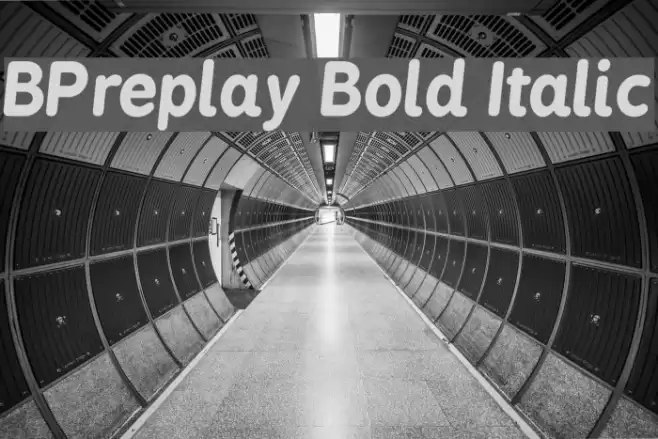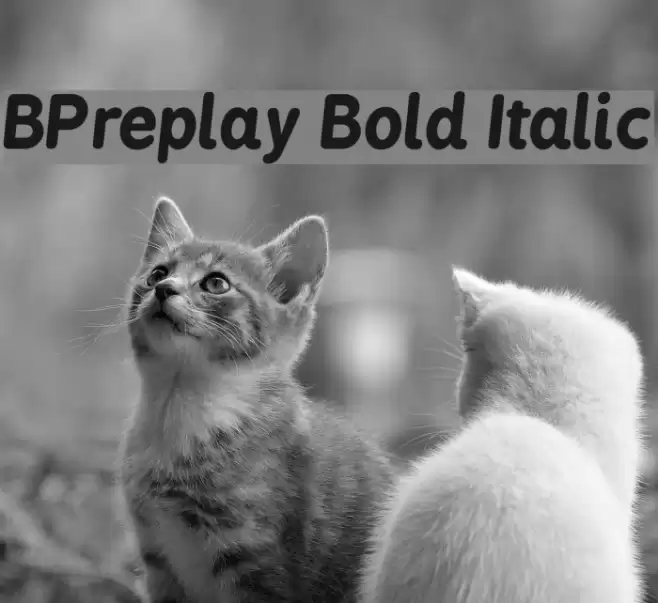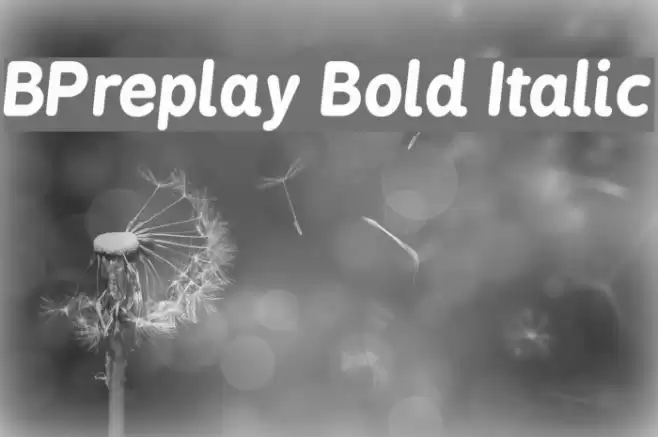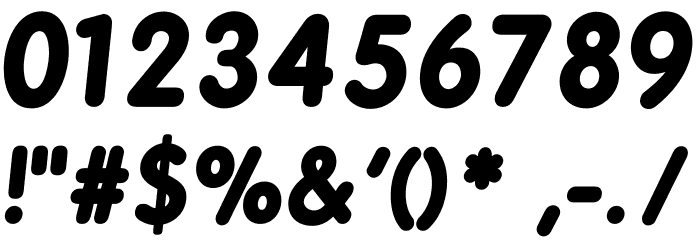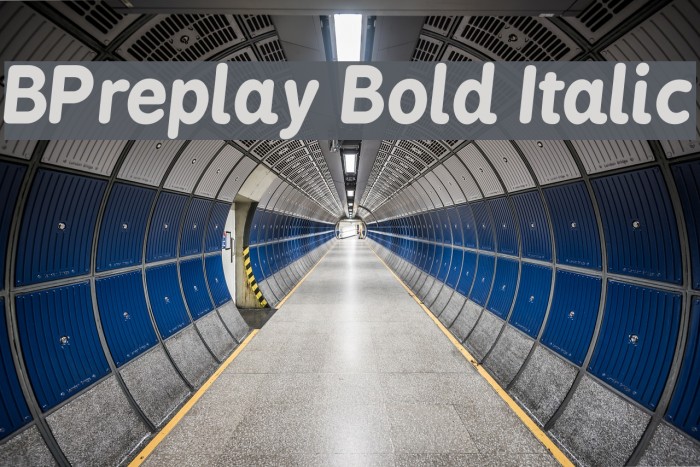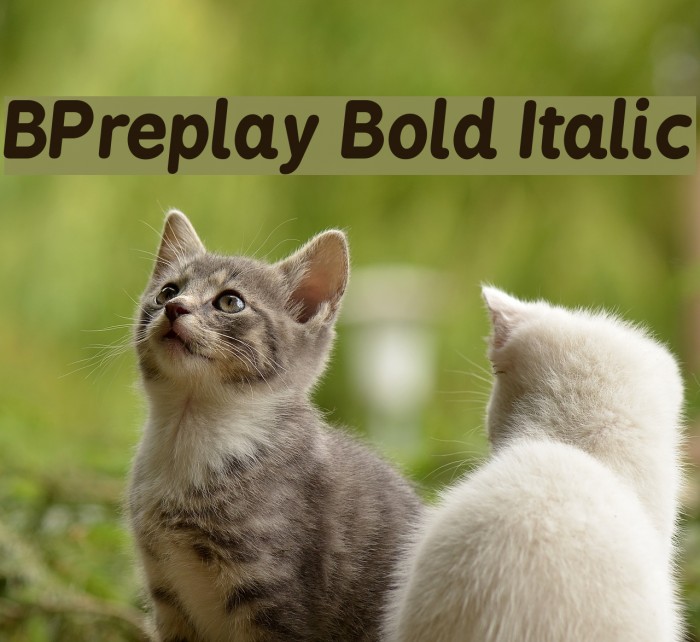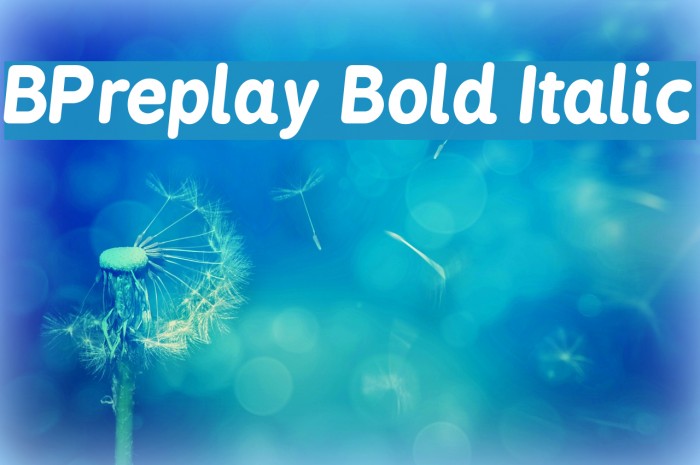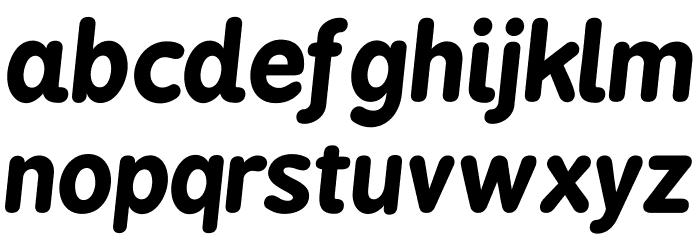
BPreplay Bold Italic Font
BPreplay Bold Italic Description
This font features a bold and italic style with rounded edges, giving it a friendly and approachable appearance. The characters are uniformly thick, providing a consistent and strong visual impact. The letters are slightly slanted, enhancing the italic effect and adding a sense of motion and dynamism. The numbers and special characters maintain the same boldness and rounded style, ensuring a cohesive look across all elements. This font is highly legible, making it suitable for various applications where readability is key. The overall design is modern and clean, with a playful touch due to its rounded forms.
A bold, italic font with rounded edges and a modern, playful style from Sans Serif fonts.
- Proposed Projects: Ideal for branding, advertising, headlines, and packaging design where a bold and friendly impression is desired.
- Use Case: Headlines, Logos, Branding